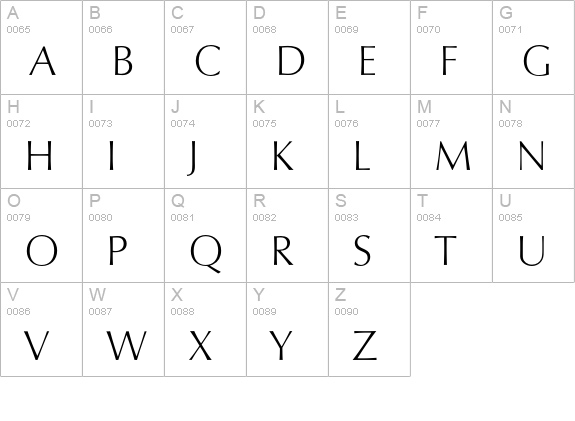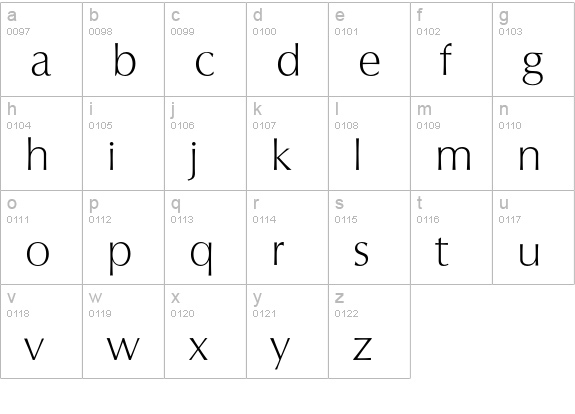
Columbia-Xlight Font Details
Columbia-Xlight is a modern and elegant sans-serif font that exudes sophistication and professionalism. Its sleek lines and minimalistic design make it a versatile choice for a wide range of design projects. With its light weight, Columbia-Xlight is perfect for adding a touch of subtlety and grace to your creations. What sets Columbia-Xlight apart is that it is not only stylish and functional, but it is also free for personal and commercial use. This means that you can download and use this beautiful font without any cost or restrictions. You can access the font for free at FontsMarket.com, where you can easily download it and enhance your design projects with this stunning typeface. Whether you are working on a branding project, a website design, or any other creative endeavor, Columbia-Xlight is sure to elevate your work with its timeless appeal and effortless charm. Download this exceptional font today and give your designs a touch of elegance and sophistication that will leave a lasting impression.